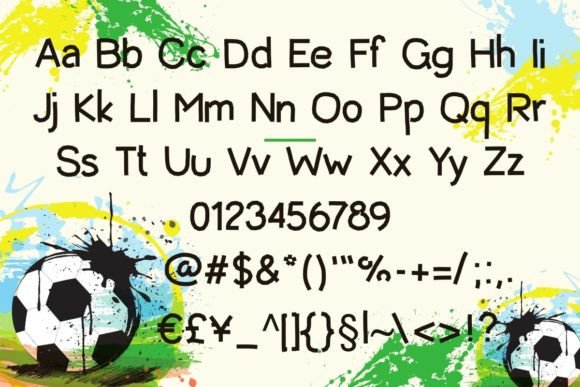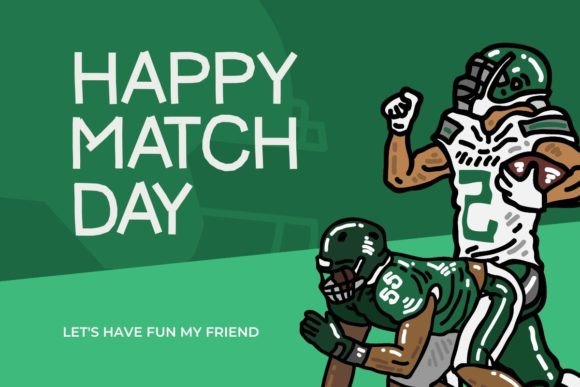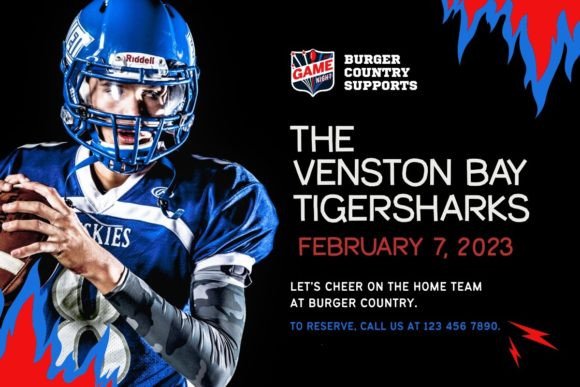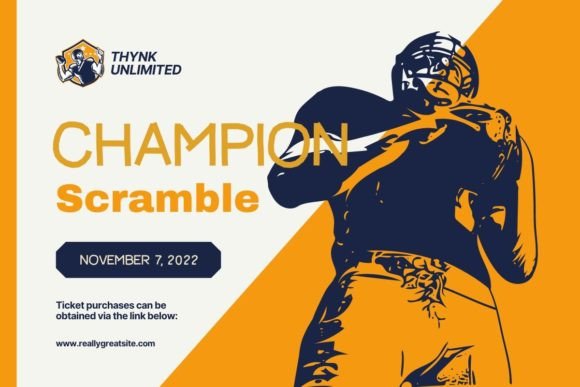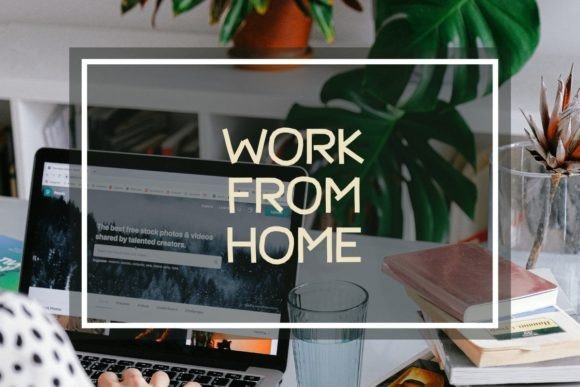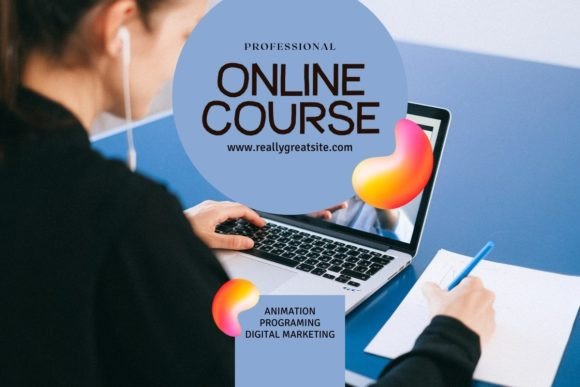
Introduction to Football Helmet Font
Have you ever stumbled upon that perfect font that makes your creative project pop? For designers, finding the right font can be a game-changer. It’s that moment when everything falls into place, and your design goes from good to great. I’m sure you’ve experienced it before – the excitement of discovering a new font that elevates your work to the next level.
That’s exactly what the Football Helmet Font does. This cool and friendly handwritten font is a treasure trove for designers, offering endless possibilities for creative projects. From digital design to presentations, and even crafting greeting cards, Football Helmet Font has the potential to become your go-to font for any occasion.
Key Features of Football Helmet Font
- High-quality design resource perfect for any creative project, offering a unique and bold aesthetic.
- Features a transparent background, allowing for seamless integration into your design.
- Designed with a focus on sports and action, making it ideal for football-related designs.
- Unique characteristics include a bold, eye-catching design and a modern aesthetic that’s sure to grab attention.
Honest Review: Football Helmet Font
The high-quality design of the font is evident in its crisp, clean lines and bold typography. The transparent background allows for seamless integration into various design elements.
- ✨ Unique and eye-catching design that’s perfect for sports-themed projects
- ✨ High-quality design ensures crisp and clear typography
- ⚠️ Limited customization options may restrict its use in more complex design projects
- ⚠️ Not suitable for projects that require a more subtle font style
Overall, I’m impressed with the Football Helmet Font’s bold and striking design. While it may have some limitations, it’s an excellent choice for designers looking to add a touch of sports flair to their projects.
Football Helmet Font is ideal for sports-themed designs, such as football jerseys, stadium graphics, and sports equipment. It’s also great for creating eye-catching graphics for social media and advertisements.
To get the most out of Football Helmet Font, experiment with different font sizes, colors, and combinations with other graphics. You can also use the font in conjunction with other design elements, such as shapes and icons, to create a unique and high-quality design.